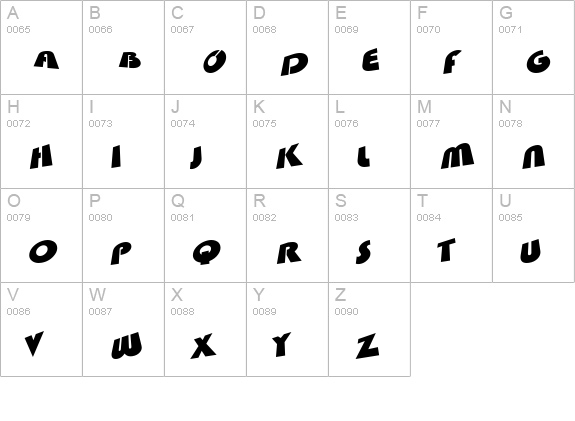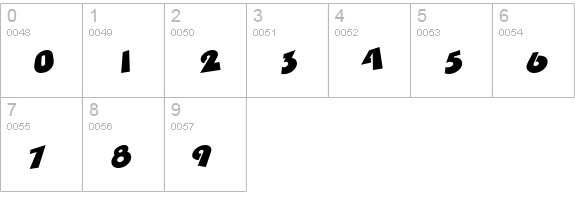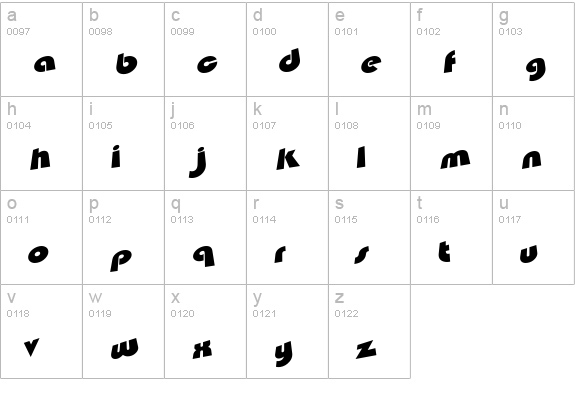
Saturday Morning Television Font Details
Introducing the captivating and nostalgic Saturday Morning Television font, a delightful typeface that will transport you back to the golden era of weekend mornings filled with laughter, adventure, and animated wonders. This enchanting font captures the essence of beloved childhood memories, exuding a playful and whimsical energy that brings a smile to your face. With its carefully crafted letters, Saturday Morning Television font effortlessly blends a retro aesthetic with a modern twist, making it a perfect choice for a wide range of creative projects. Whether you're designing a logo, creating eye-catching headlines, or adding a touch of vintage charm to your social media posts, this font is sure to captivate your audience. The Saturday Morning Television font offers a diverse range of character variations, allowing you to experiment and create unique typographic compositions. Its bold and vibrant uppercase letters, complemented by the elegant and playful lowercase glyphs, offer a harmonious balance that adds depth and character to your designs. As a special treat, the Saturday Morning Television font is available for free download exclusively at FontsMarket.com. Yes, you read that right - you can freely enjoy the magic of this font without breaking the bank. FontsMarket.com is renowned for its vast collection of top-quality fonts, and this font is no exception. So don't miss out on the opportunity to bring a touch of nostalgia and creativity to your projects with the Saturday Morning Television font. Download it now and let your imagination soar!